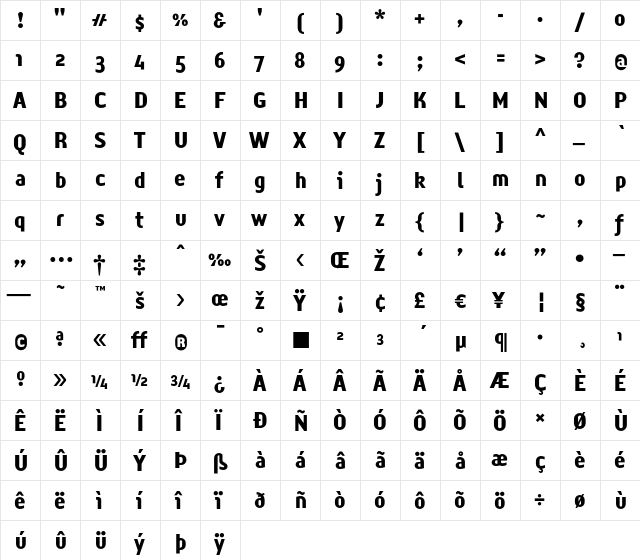
OgilveTwoBold Regular
Design Context for OgilveTwoBold Typeface
OgilveTwoBold is a composed and adaptable typeface that performs quietly and consistently across a wide range of design contexts. Its bold stroke weight gives it real presence on the page.